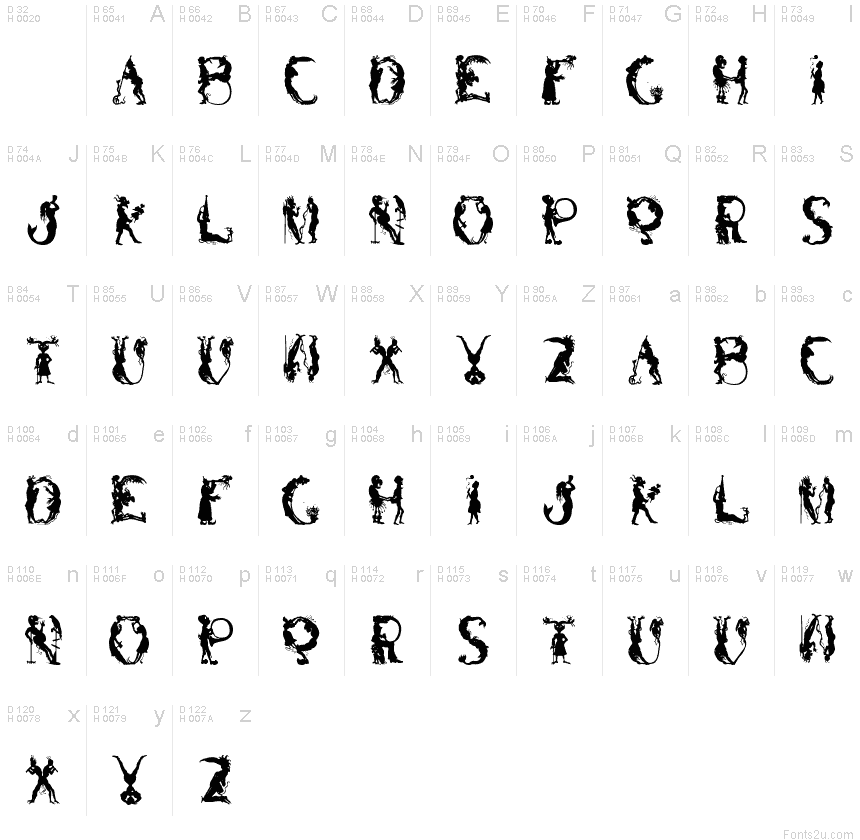
Bizarro Regular
Bizarro font by D. Rakowski is a free decorative display typeface that turns every letter into a tiny shadow-play scene. Dense black silhouettes of curious characters, beasts, and vines lock together to form chunky, legible shapes, like a Victorian paper-cut gone gleefully rogue. The result feels theatrical, eerie, and a little mischievous—more like an illustration than a line of type.
This free font shines on horror posters, dark fairytale book covers, Halloween invites, circus-themed branding, zines, album art, and game titles. Using Bizarro at large sizes lets the inky cut-out details stay sharp and readable; pair it with a simple geometric sans for body copy so the wild letterforms stay center stage without overwhelming the layout.